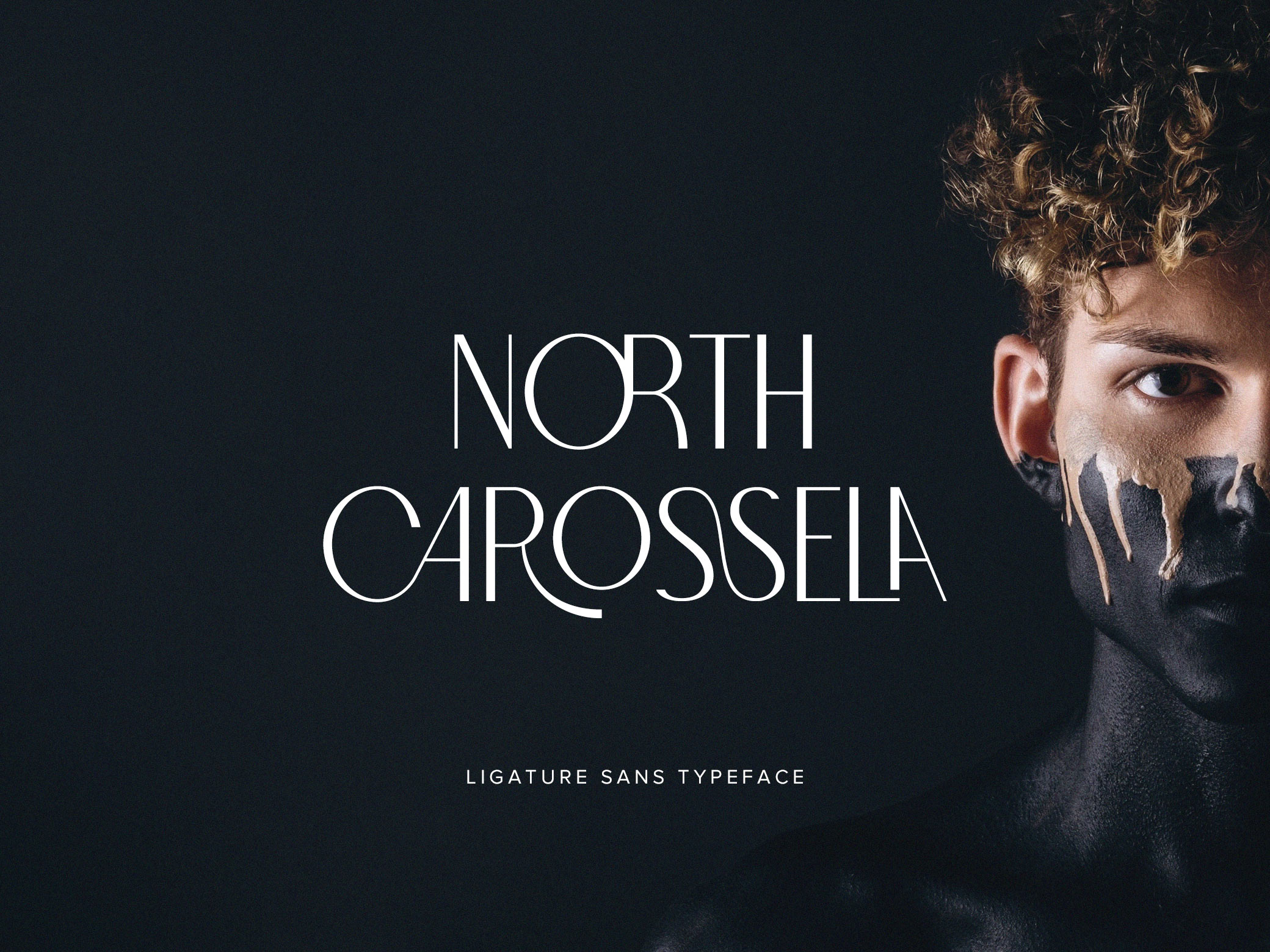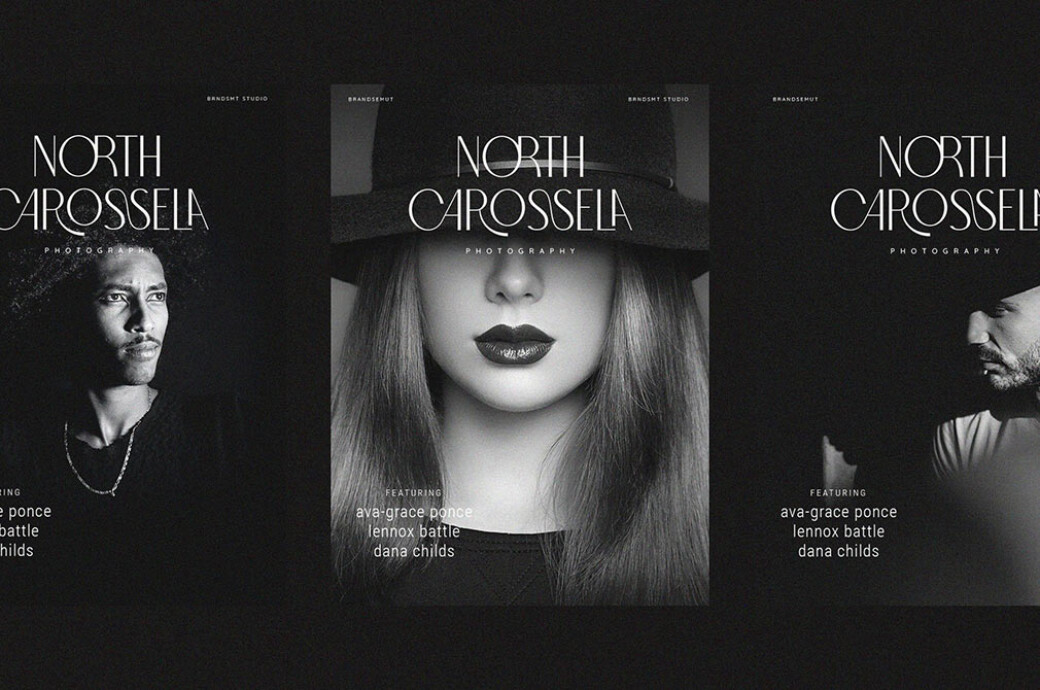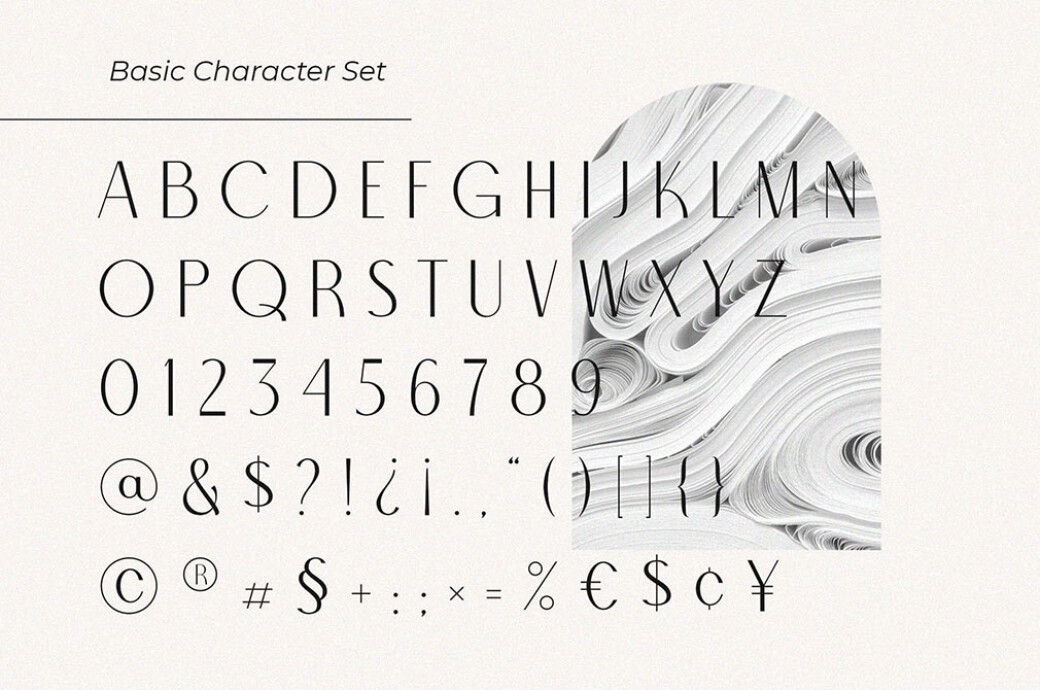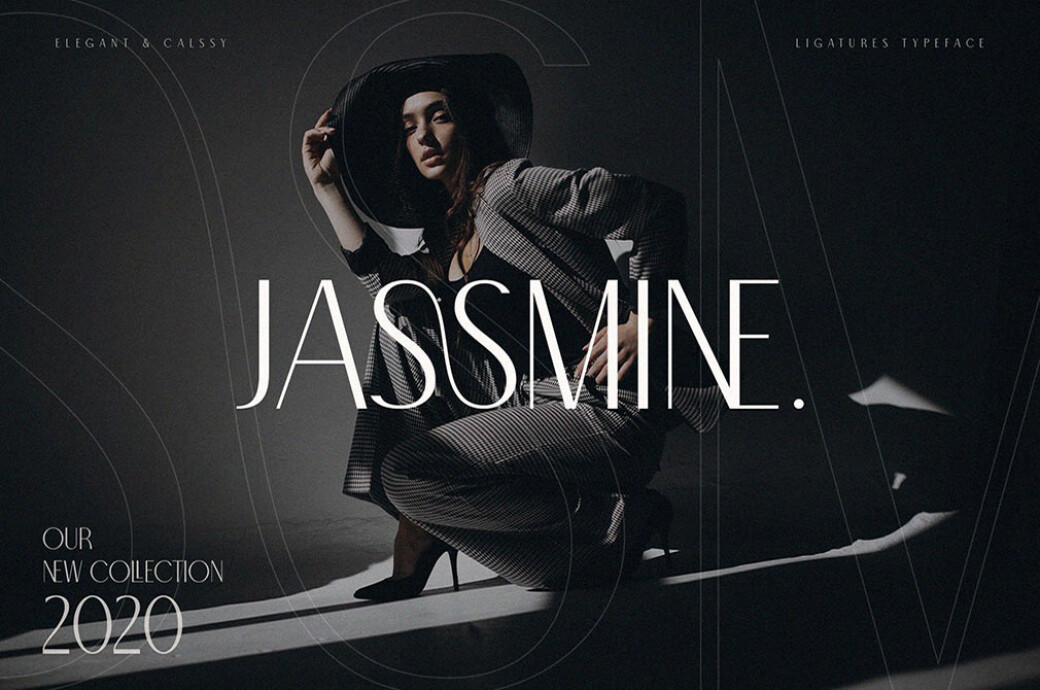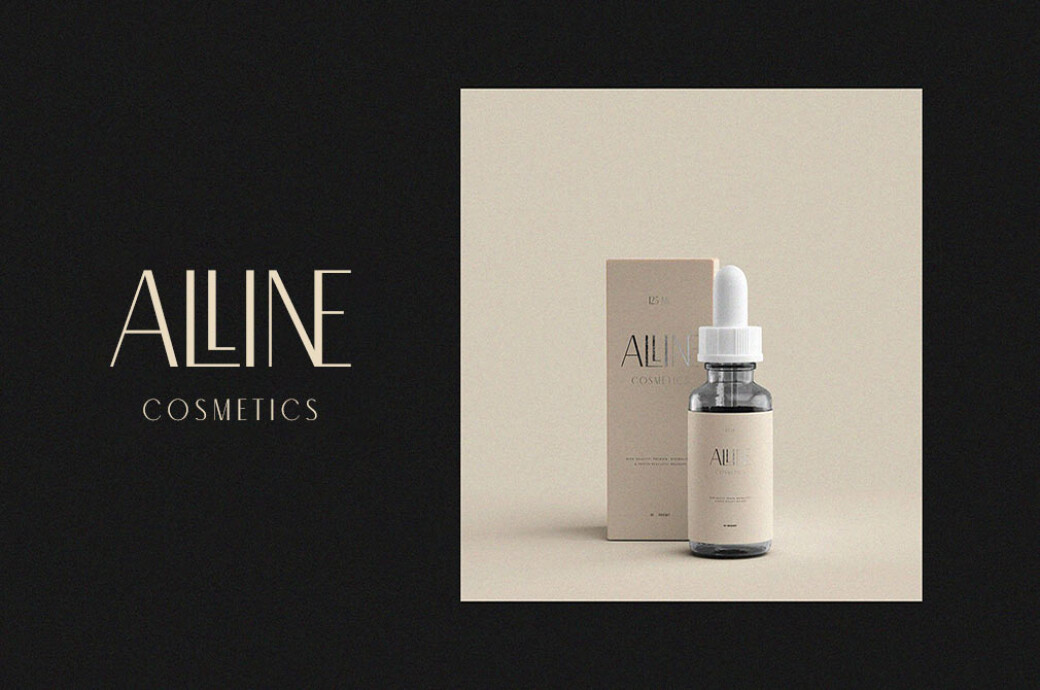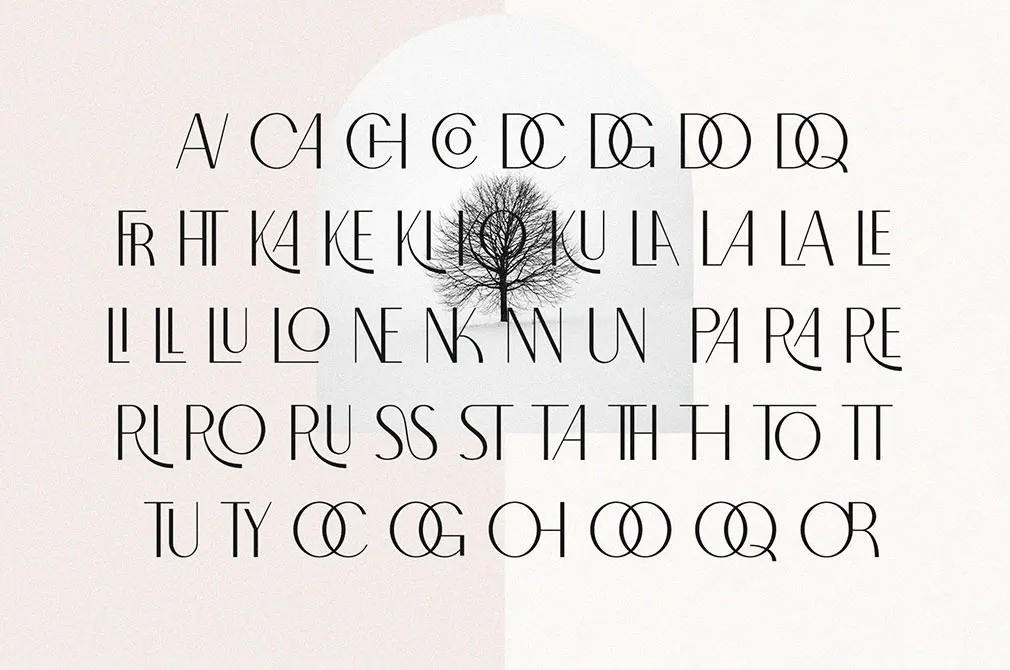
North Carossela Sans Serif
The red carpet spotlights, tuxedos, and sparkling necklaces — if it was possible to turn the sans serif font into an event, it would be exactly that kind. Luxurious, classy, and fancy!North Carossela is an elegant sans typeface, already matching your future design and ready to shine! The font was built with OpenType features and includes alternates, numbers, punctuation, and multi-language support. The cherry on the top of this typeface is the collection of splendid ligatures, completing the artistic imagery. If you're bold enough to use North Carossela, get ready to control your desire to bring this font into everything your creative hand touches: logotypes, packaging, signs, websites, presentations, and more.